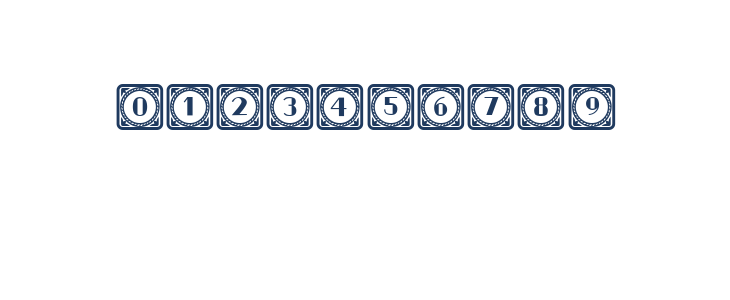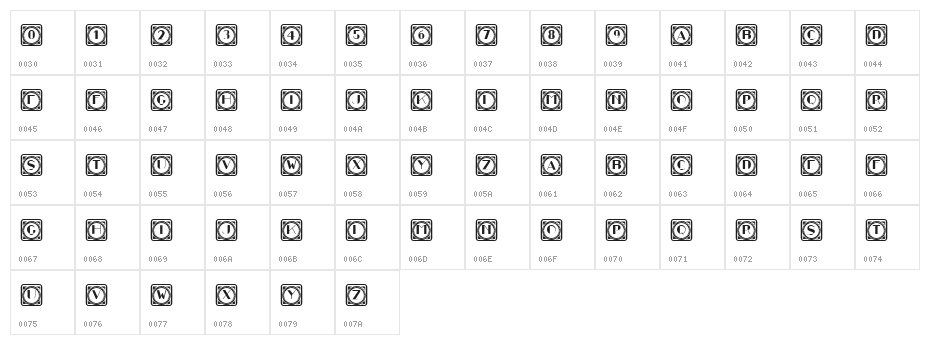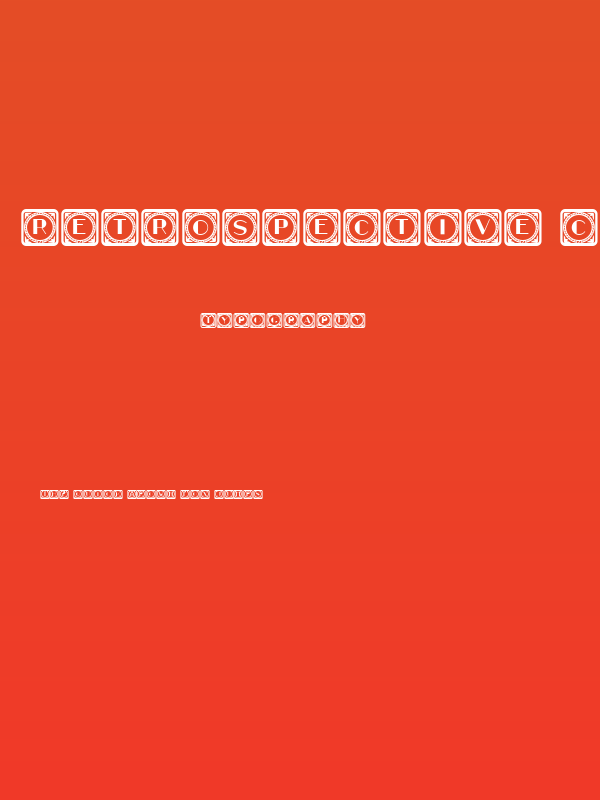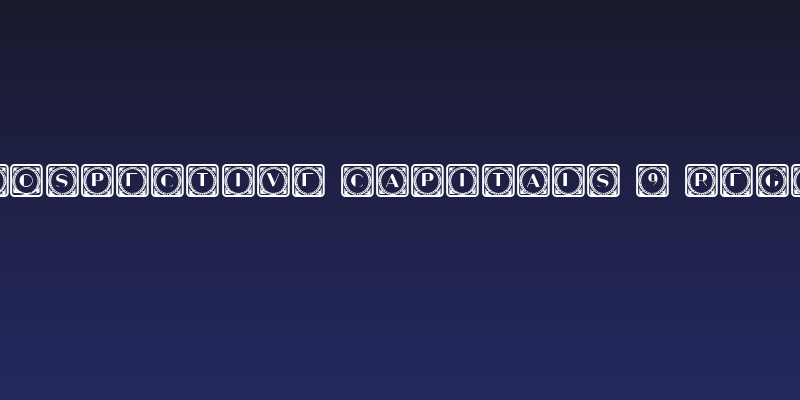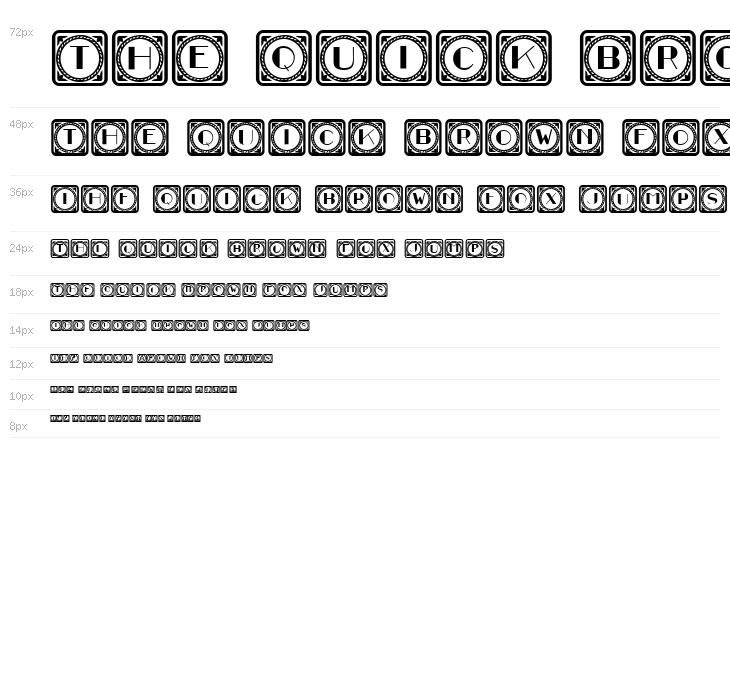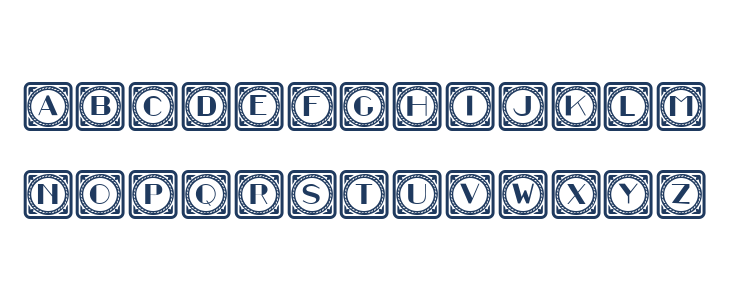
Retrospective Capitals 9 Regular Font
Retrospective Capitals 9 Regular Description
This font features a decorative style with each character enclosed within a square frame. The letters and numbers are bold and prominently displayed, with a distinct vintage flair. The intricate border around each character adds a layer of complexity and elegance, making it stand out. The design is reminiscent of retro signage or typewriter keys, offering a nostalgic feel. The characters are evenly spaced within their frames, ensuring clarity and readability despite the ornate design. This font is ideal for projects that require a touch of classic charm and sophistication.
| Use Case | Logos, Headlines, Decorative elements |
| Proposed Projects | Ideal for vintage-themed posters, retro branding, decorative signage, and artistic projects requiring a classic touch. |